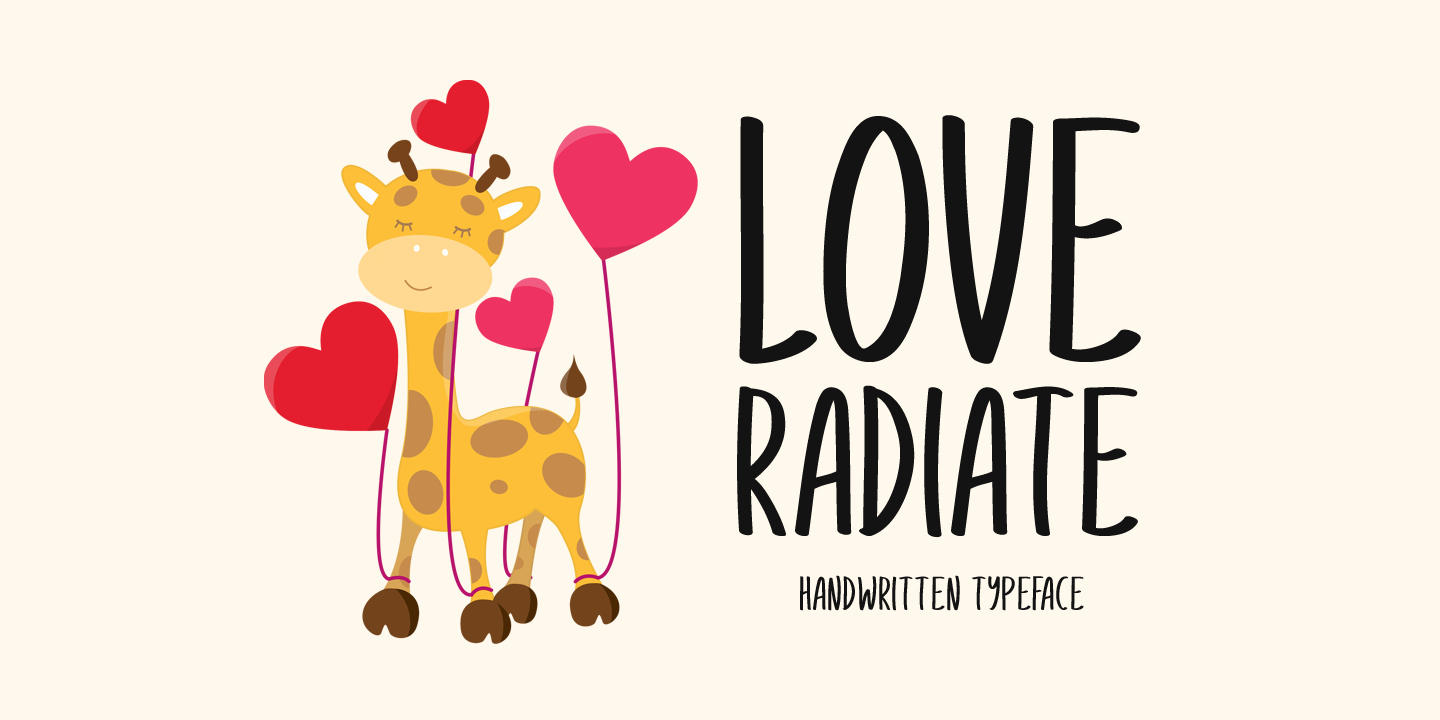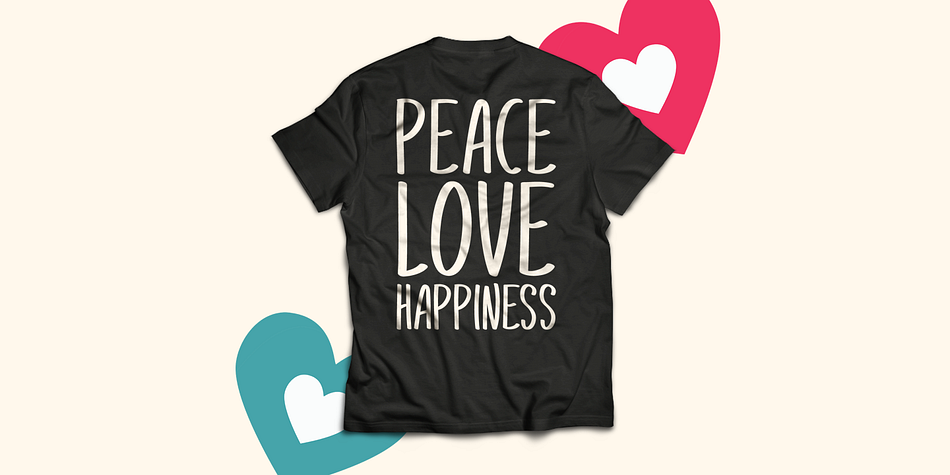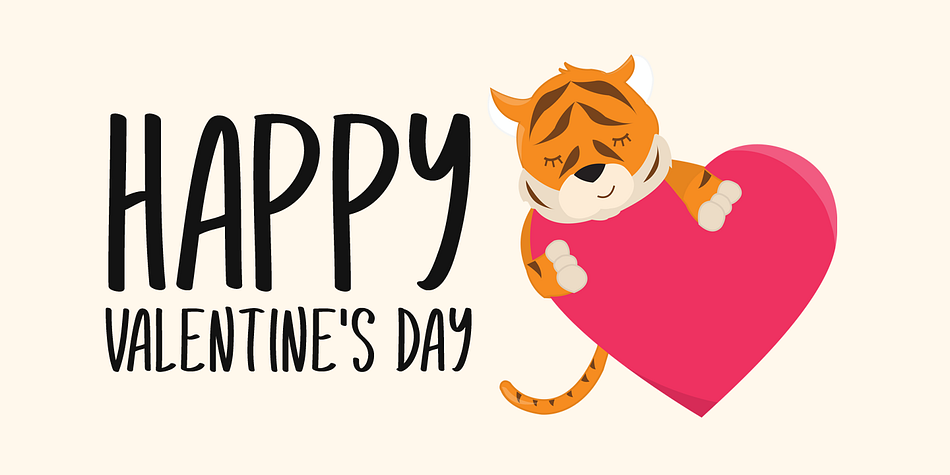
Designed by Md. Shohail Bhuiyan, Love Radiate is a hand drawn font published by Seemly Fonts.
Love Radiate a joyful and casual handwritten font. Its natural and unique style makes it incredibly fitting to a large pool of designs. The only limit is your imagination!